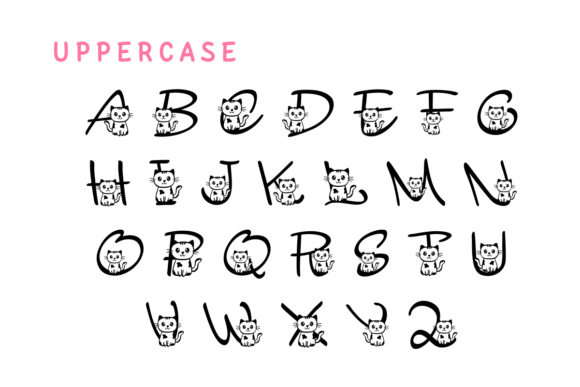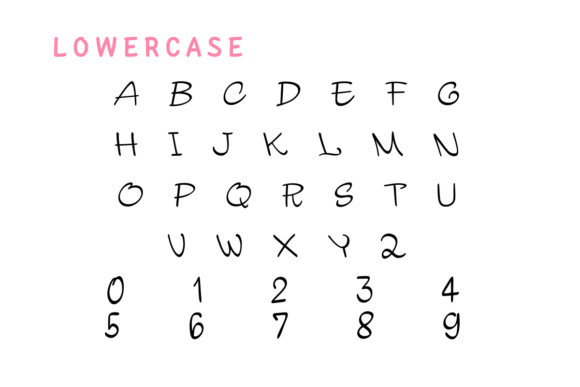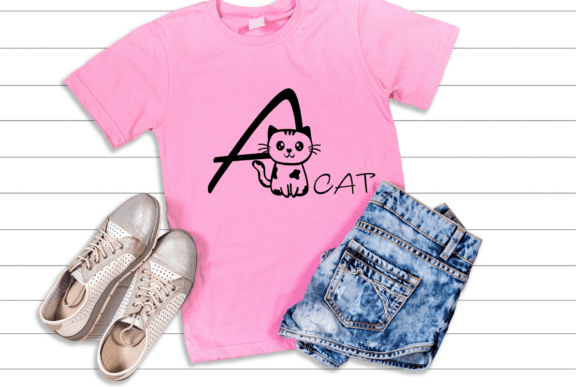
Introduction to Pet Cat Font
Pet cat is a Decorative font.
You can use it for taking notes, writing a diary, or making greeting cards However, you can still use it for other designs, such as banners, content, mugs, cards, shirts, stationery, social media posts, and more.
Pet Cat Font offers exceptional quality and versatility, making it a valuable addition to your design toolkit. Whether you’re creating for personal projects or commercial use, Pet Cat Font delivers professional results.